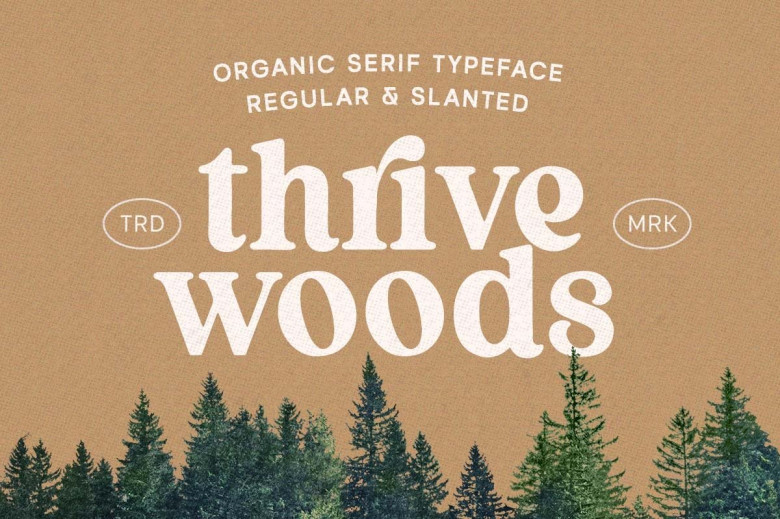
Thrive Woods Font
“Thrive” Wood is an attractive natural serif typeface featuring fashionable designs. The font can be used in logo designs as well as formal applications like labels, invitations and logos, magazines, books, greeting cards, wedding card packaging, fashion, makeup, stationery books, labels or any type of advertising mediums.
Thrive Woods Serif Font